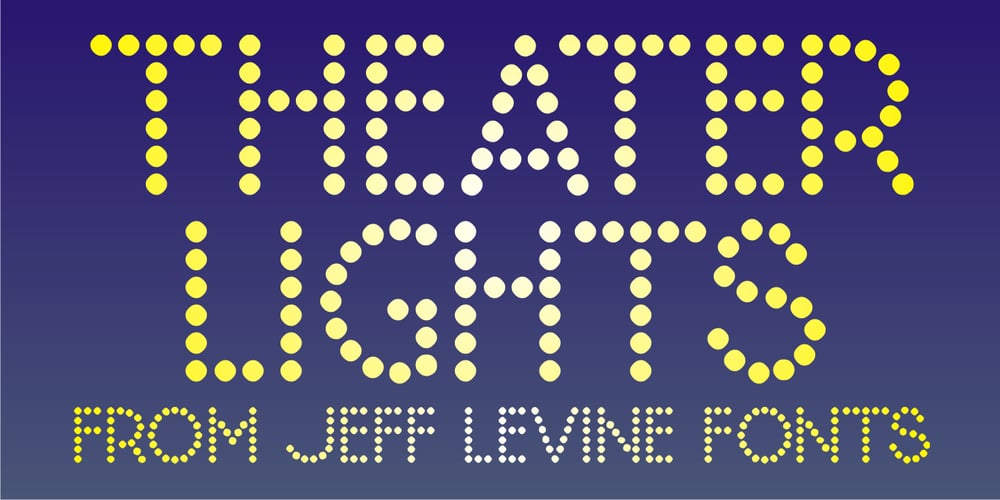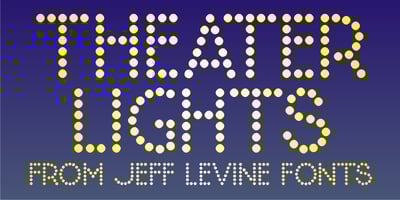
Theater Lights JNL Font Family was designed by Jeff Levine and published by Jeff Levine. Theater Lights JNL contains 1 styles and family package options. Vintage sheet music for the title song from the film “Forty Second Street” was the inspiration for Theater Lights JNL. While the idea of letters comprised of circles (to simulate bulbs) can be both vintage [as in marquee lights] or modern [simulating dot matrix printers], it is always a fun approach to a tried-and-true style.